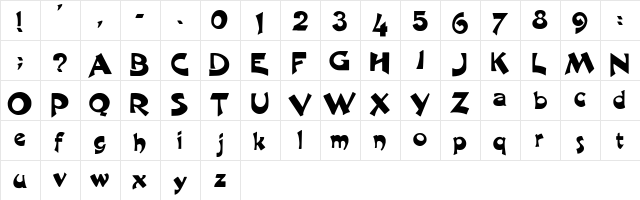
Harquil Regular
Design Context for Harquil Typeface
Harquil is a composed and adaptable typeface that performs quietly and consistently across a wide range of design contexts.